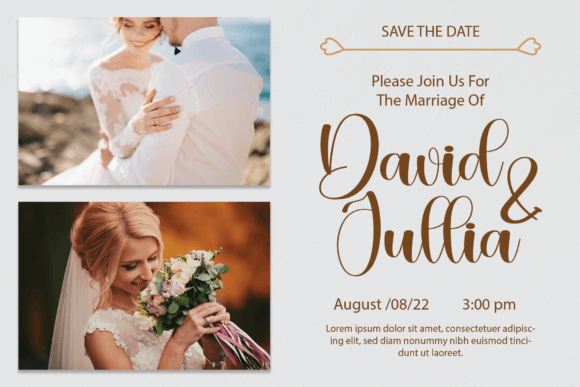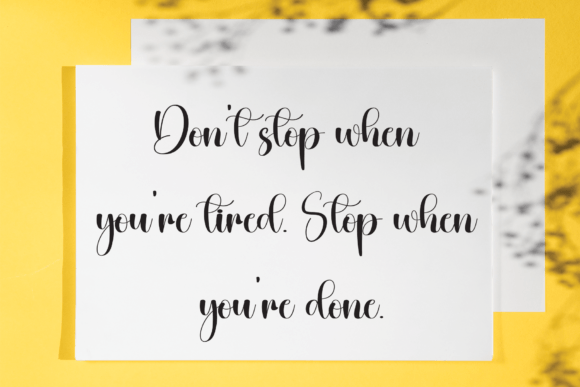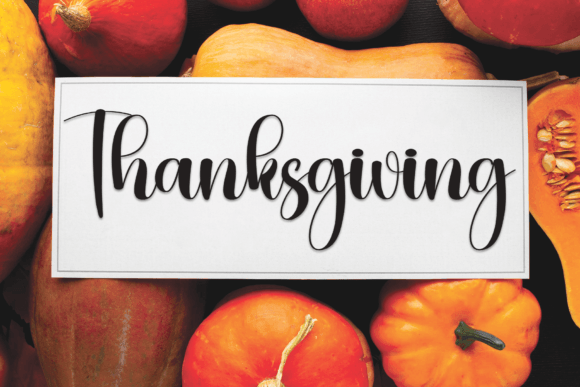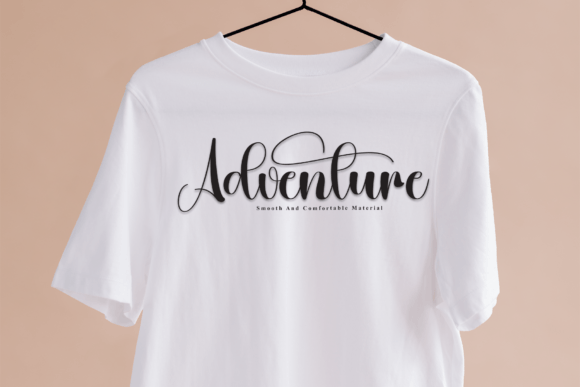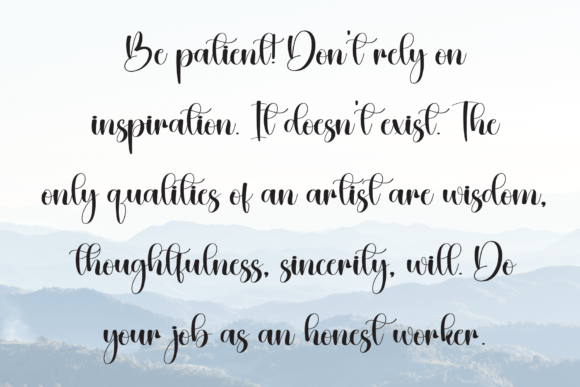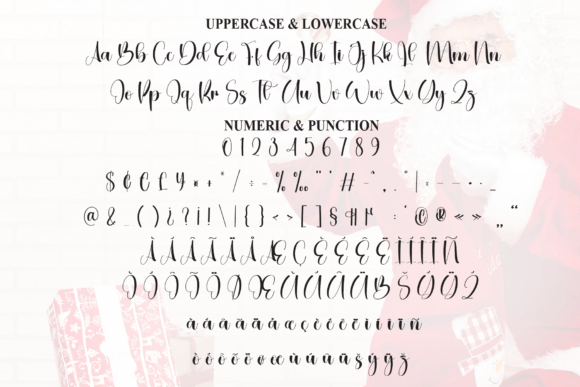
Introduction to Santa Soutice Font
Santa Soutice is a stylish handwritten script font exuding elegance and charm.
Its fluid strokes and natural flow create a captivating, sophisticated look Perfect for adding a personal touch to invitations, branding, or social media, this font brings a sense of warmth and creativity to any design.
Key Features of Santa Soutice Font
Why Choose Santa Soutice Font?